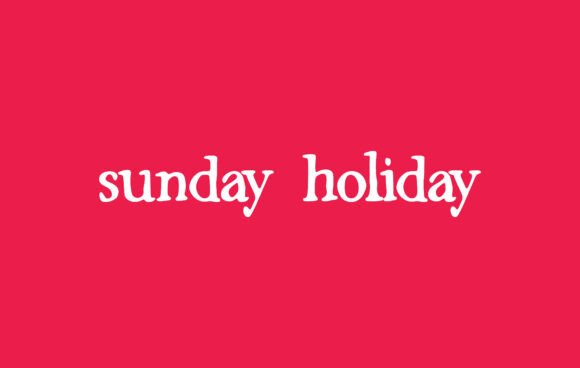
Elian Font: The Ultimate Handwritten Font for Creative Projects
The world of typography is vast and diverse, with numerous fonts available for creative projects. However, finding the perfect font that adds a touch of elegance and sophistication can be a daunting task. This is where the Elian Font comes in – an authentic handwritten font with a romantic touch that has the potential to elevate your creative ideas to new heights.
What Makes Elian Font Stand Out?
Elian Font is expertly designed to be a true favorite among designers and creative enthusiasts. Its unique features make it an ideal choice for various design projects, including:
- Legibility: Elian Font is designed to be highly legible, making it perfect for both title and body text.
- Romantic Touch: The font’s handwritten style adds a touch of romance and elegance to any design project.
- Versatility: Elian Font can be used for a wide range of designs, including magazine headlines, social media graphics, branding, wedding invitations, cards, and more.
Design Applications of Elian Font
Elian Font’s versatility makes it an excellent choice for various design applications. Here are some of the ways you can use this font:
Magazine Headlines
Elian Font’s bold and elegant style makes it perfect for magazine headlines. Its legibility ensures that your title stands out, grabbing the reader’s attention.
Social Media Graphics
Create stunning social media graphics with Elian Font. Its unique style will make your posts stand out, adding a touch of personality to your brand.
Branding
Elian Font can be used to create a cohesive brand identity. Its elegant style makes it perfect for logos, business cards, and other branding materials.
Wedding Invitations
Add a touch of romance to your wedding invitations with Elian Font. Its handwritten style creates a warm and intimate feel, perfect for wedding stationery.
Cards and Stationery
Elian Font is also suitable for creating cards and stationery. Its elegant style makes it perfect for formal and informal correspondence.
Typography Tips for Using Elian Font
To get the most out of Elian Font, here are some typography tips to keep in mind:
- Pair with contrasting fonts: Pair Elian Font with contrasting fonts to create visual interest and hierarchy.
- Use font sizes effectively: Use font sizes to create a clear hierarchy of information, making it easy to read and understand.
- Adjust line spacing: Adjust line spacing to ensure that your text is easy to read and visually appealing.
Benefits of Using Elian Font
Elian Font offers numerous benefits, including:
- Unique style: Elian Font’s handwritten style adds a touch of elegance and sophistication to any design project.
- Legibility: The font’s high legibility ensures that your text is easy to read and understand.
- Versatility: Elian Font can be used for a wide range of design applications, making it a valuable addition to your font library.
Elian Font is an exceptional handwritten font with a romantic touch that can elevate your creative projects to new heights. Its unique features, versatility, and legibility make it an ideal choice for designers and creative enthusiasts. By incorporating Elian Font into your design projects, you’ll add a touch of elegance and sophistication that will leave a lasting impression.